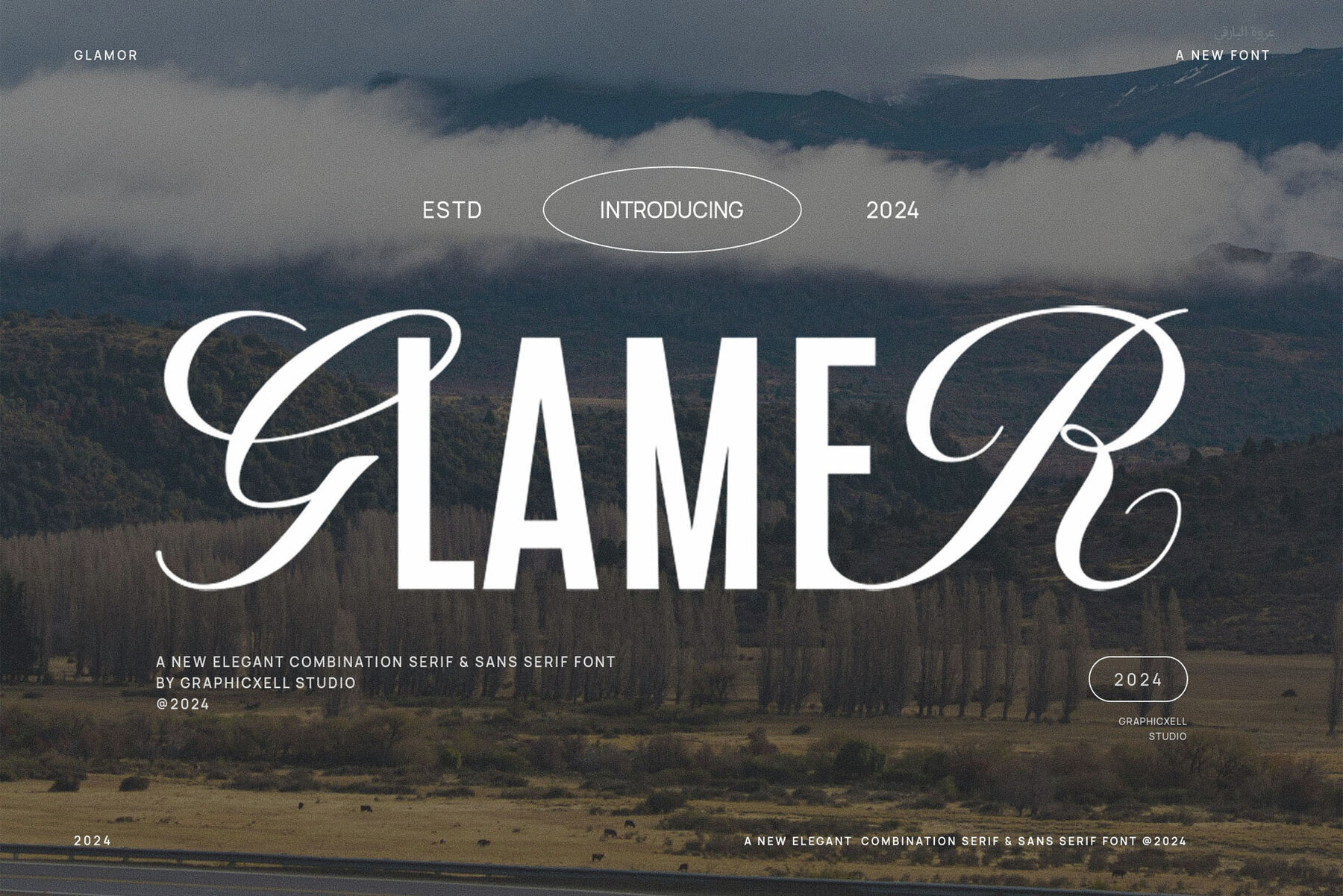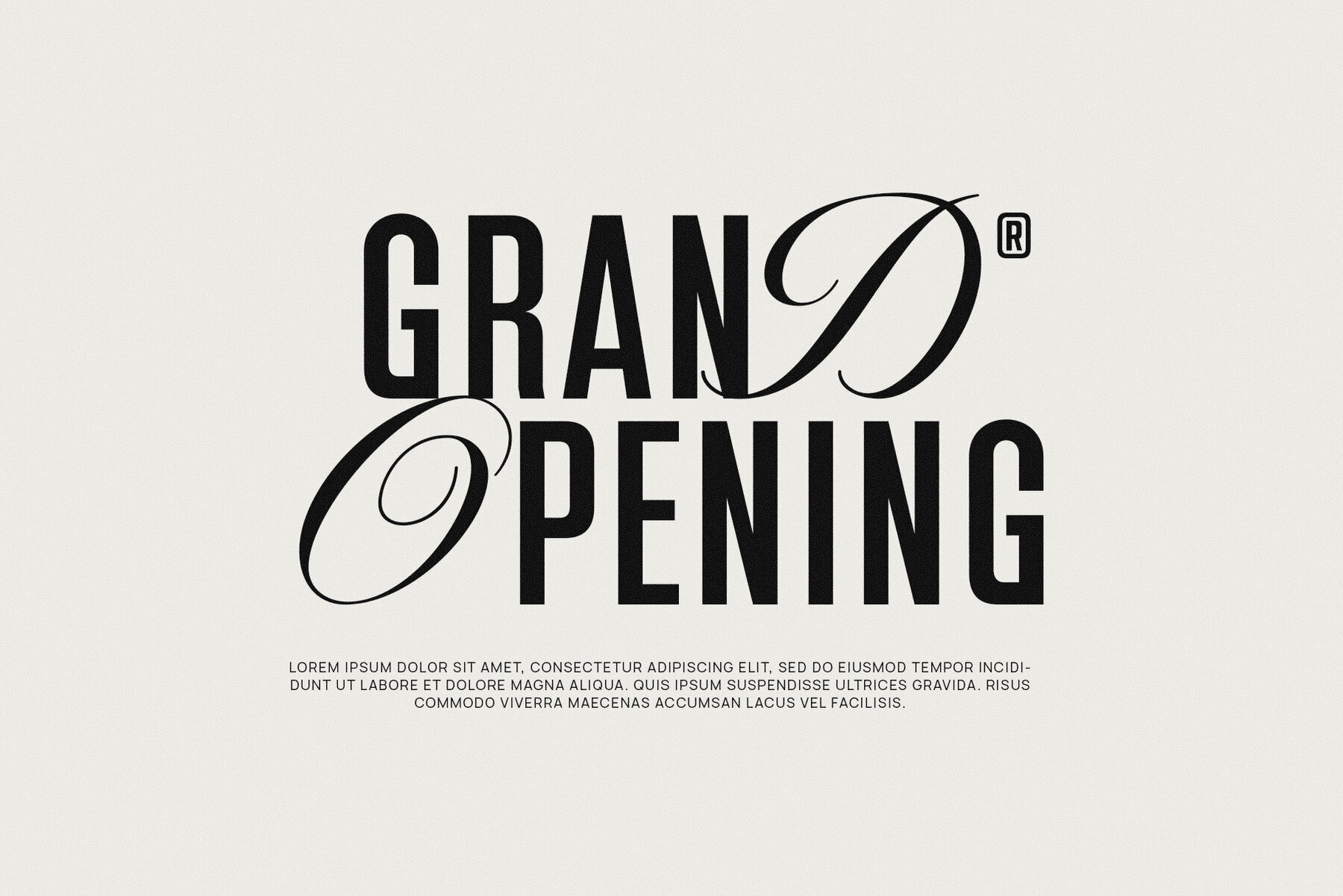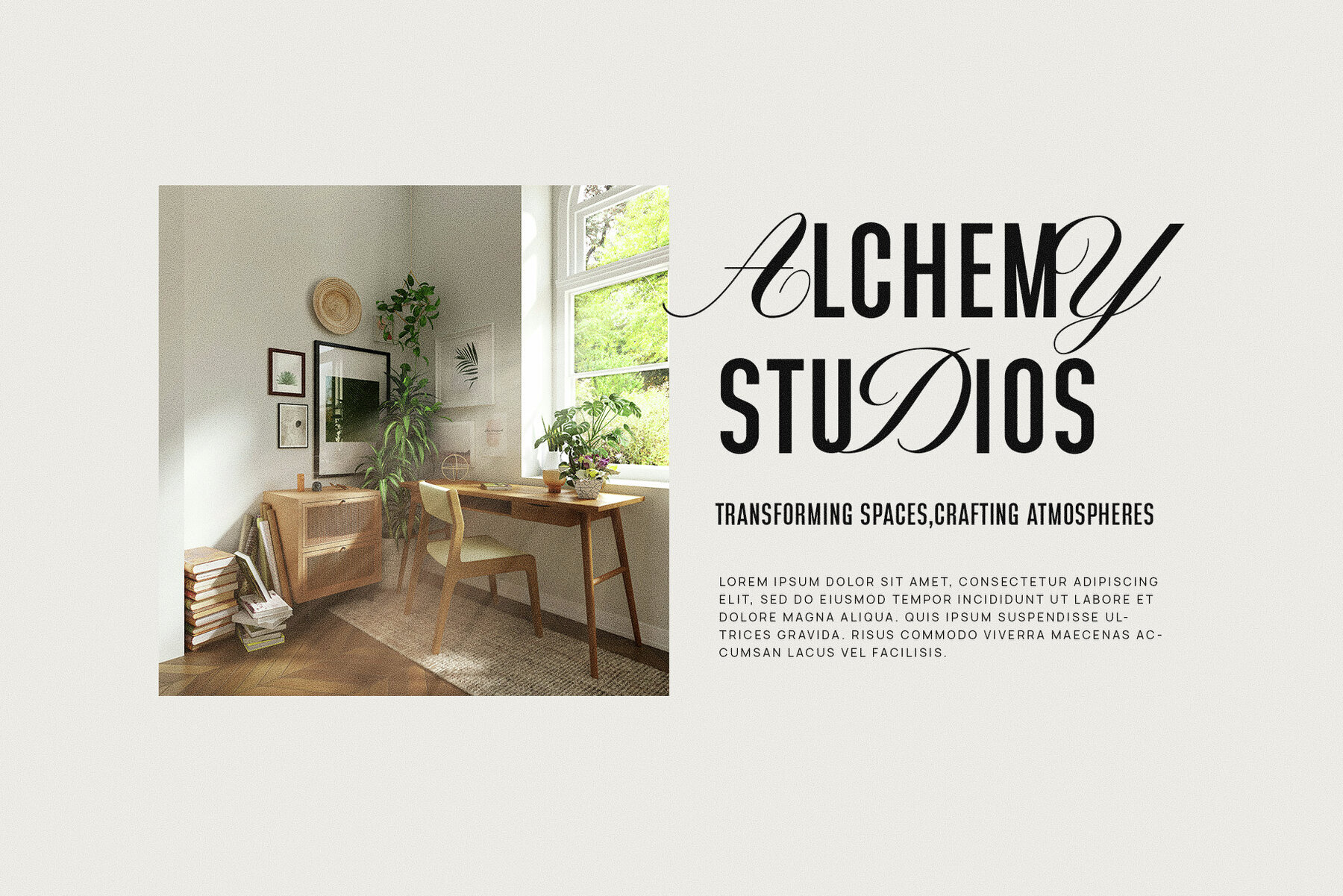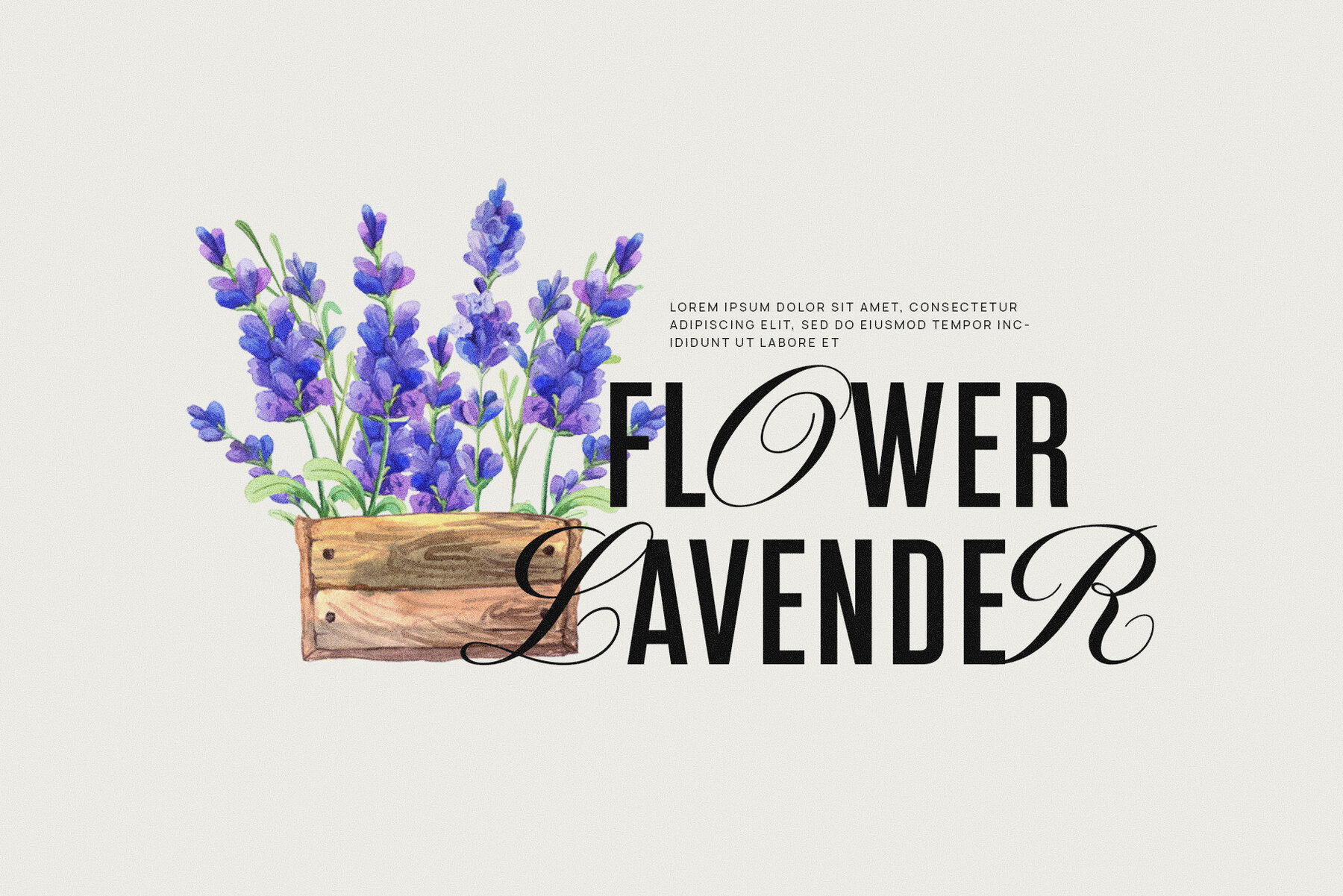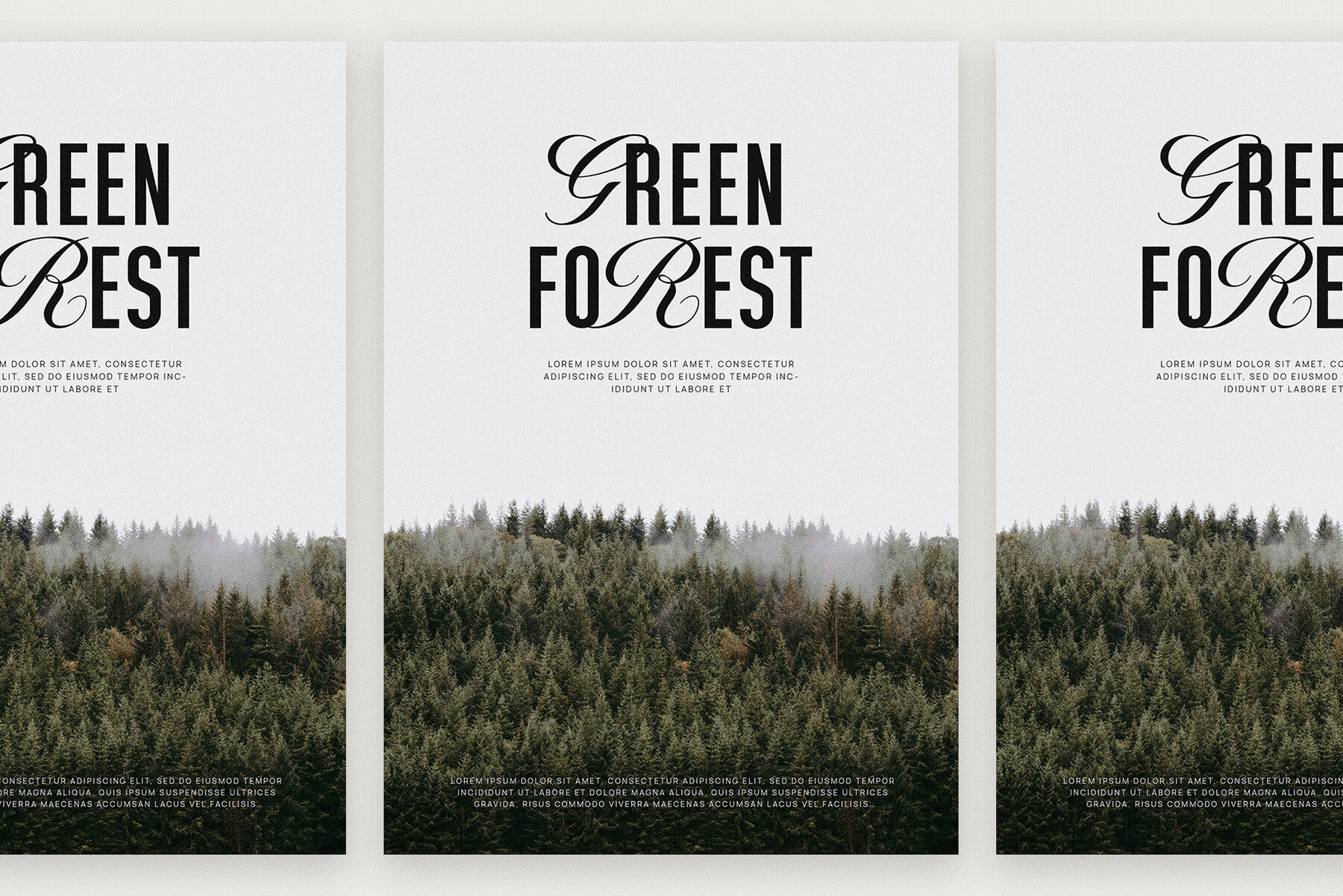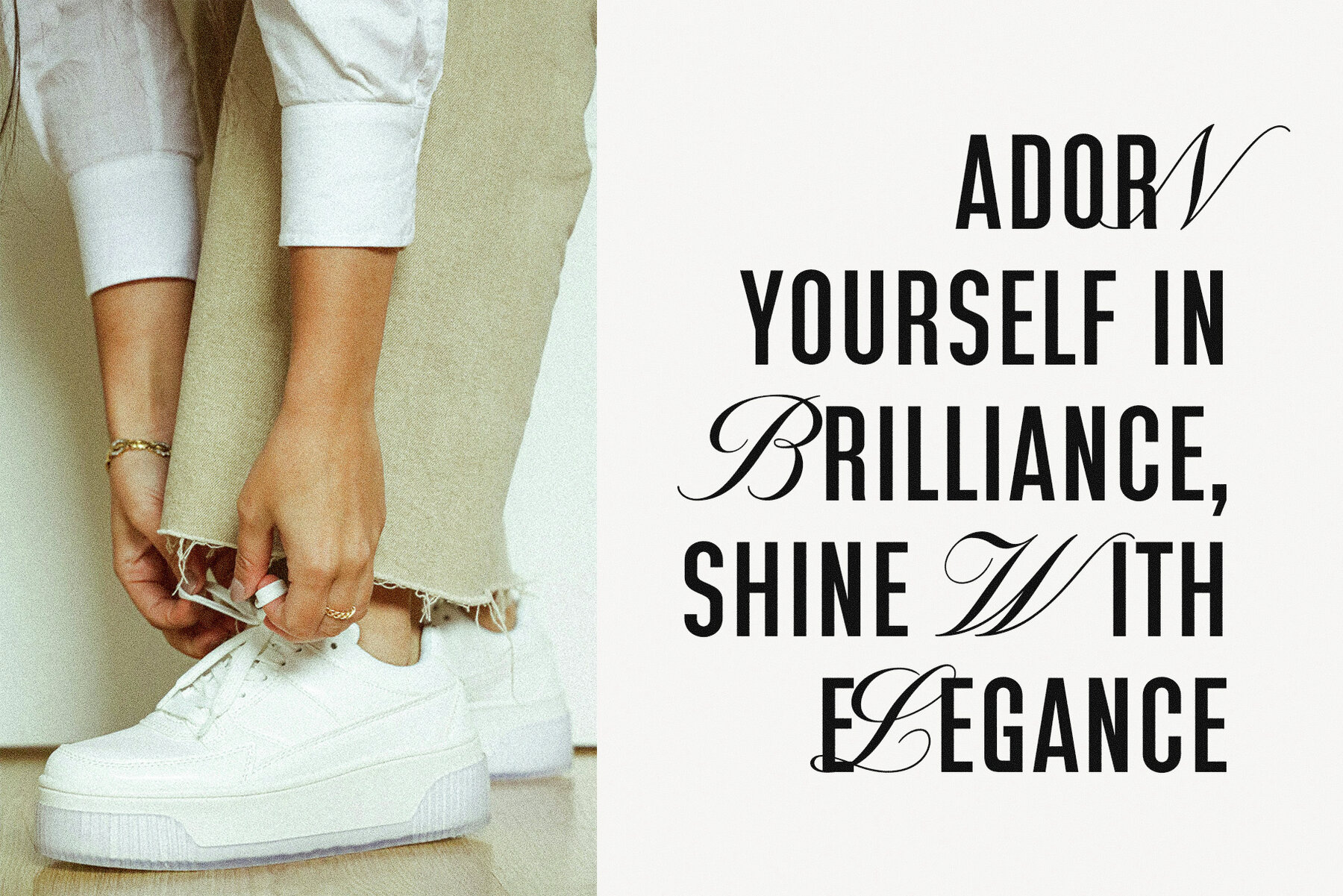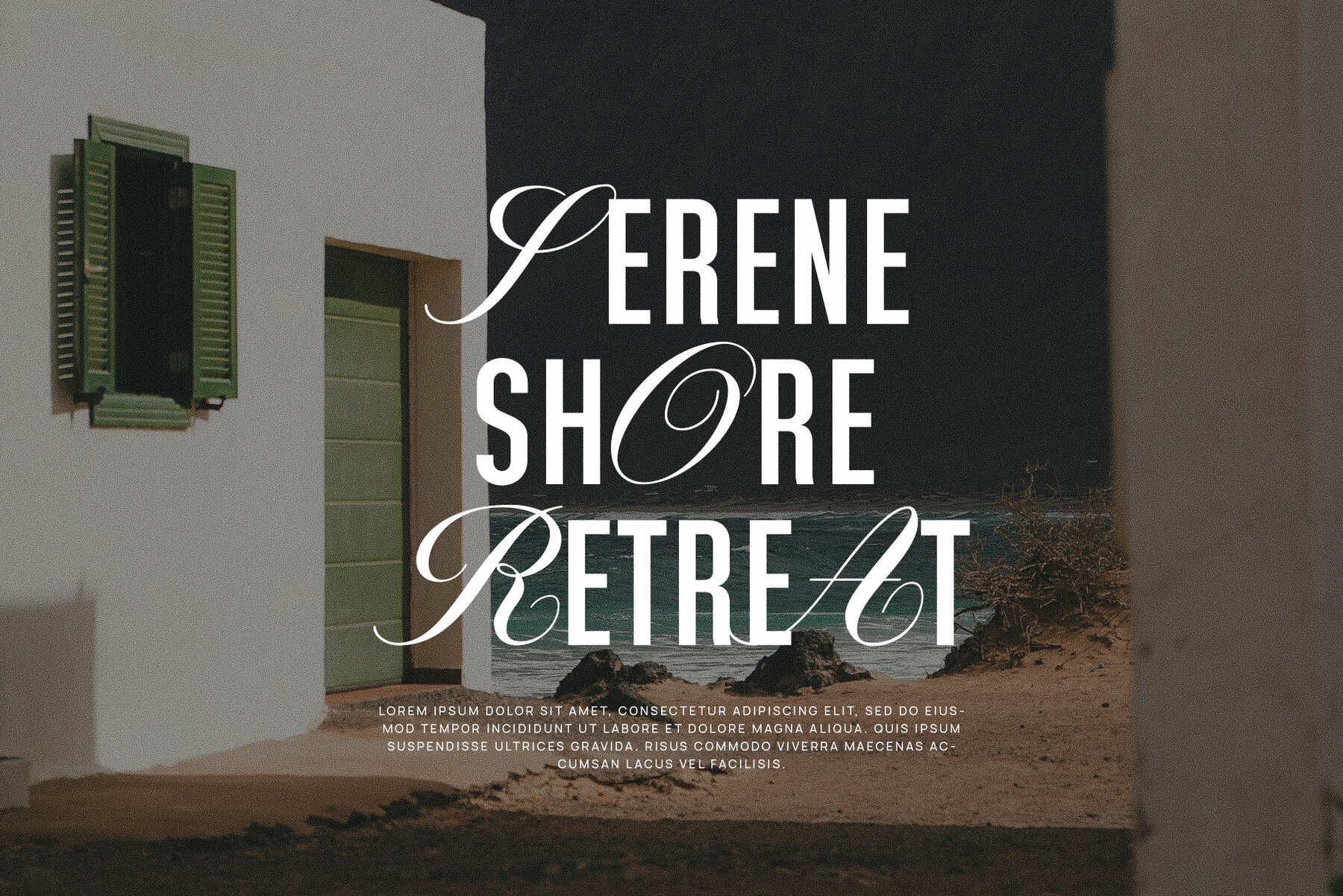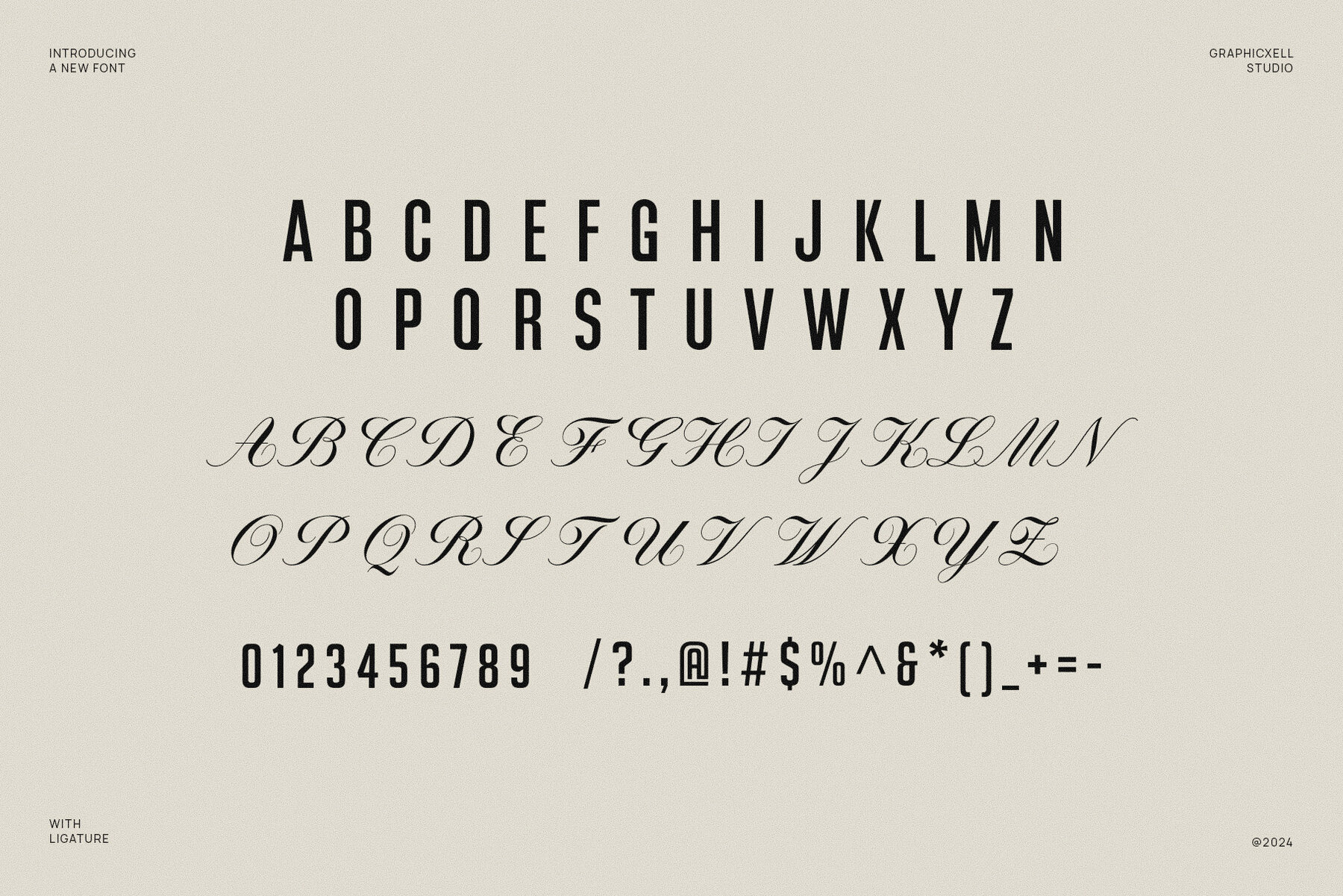
Glamer Font
Glamer Regular
Glamer Modern Calligraphy Sans Serif is a unique fusion of modern calligraphy and classic sans serif, creating a font that is both elegant and contemporary.
The calligraphic elements add a sense of fluidity and grace, while the sans serif provides a clean and minimalist aesthetic.
This font is perfect for projects that require a touch of sophistication and style.
Its elegant and classic style also makes it perfect for use in wedding designs, social media posts, advertisements, product packaging, labels, photography, watermarks, invitations, stationery, and more. The font's high level of readability ensures that your message will be clear and easy to understand, no matter the context.
If you're looking to elevate your designs and make a lasting impression, Glamer Modern Calligraphy Sans Serif Font is an excellent choice. Its versatility and elegance make it a valuable asset for any designer, and its unique style is sure to captivate audiences.